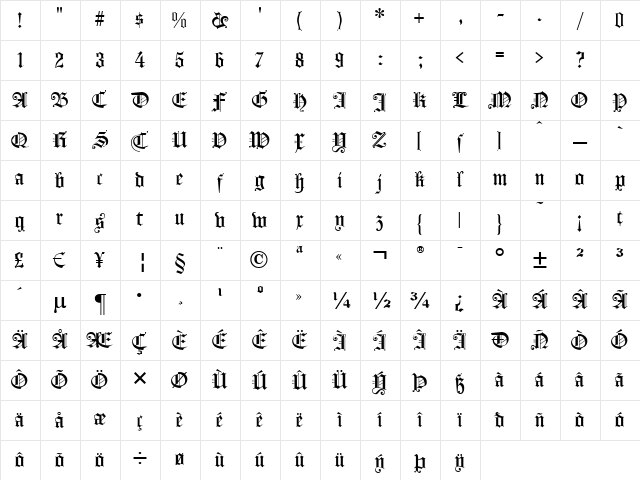
KoenigsbergerGotisch Regular
Design Context for KoenigsbergerGotisch
KoenigsbergerGotisch is a composed and adaptable typeface that performs quietly and consistently across a wide range of design contexts.
Pro Tip: Use KoenigsbergerGotisch in both headline and body roles to test its range before committing to a single application.